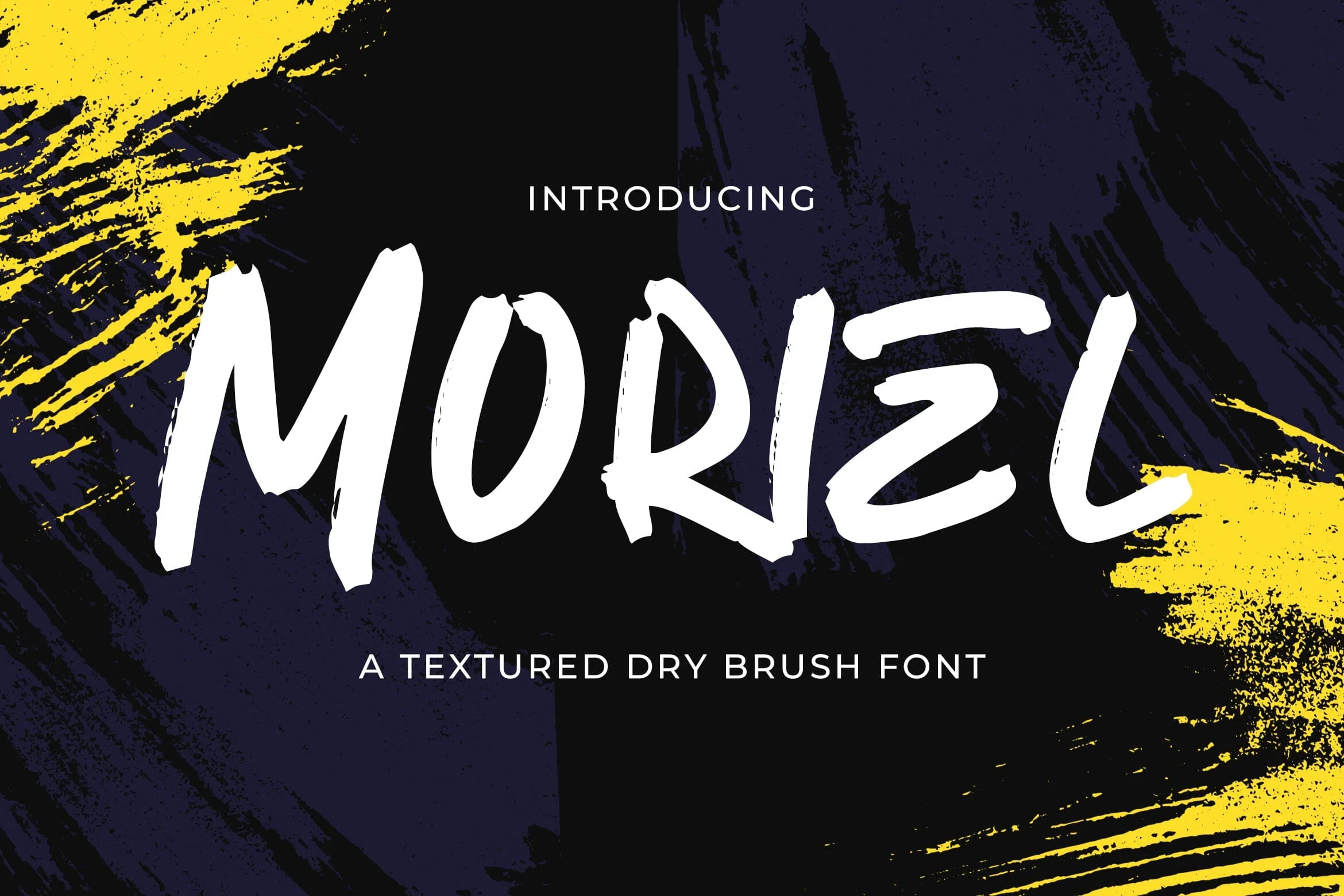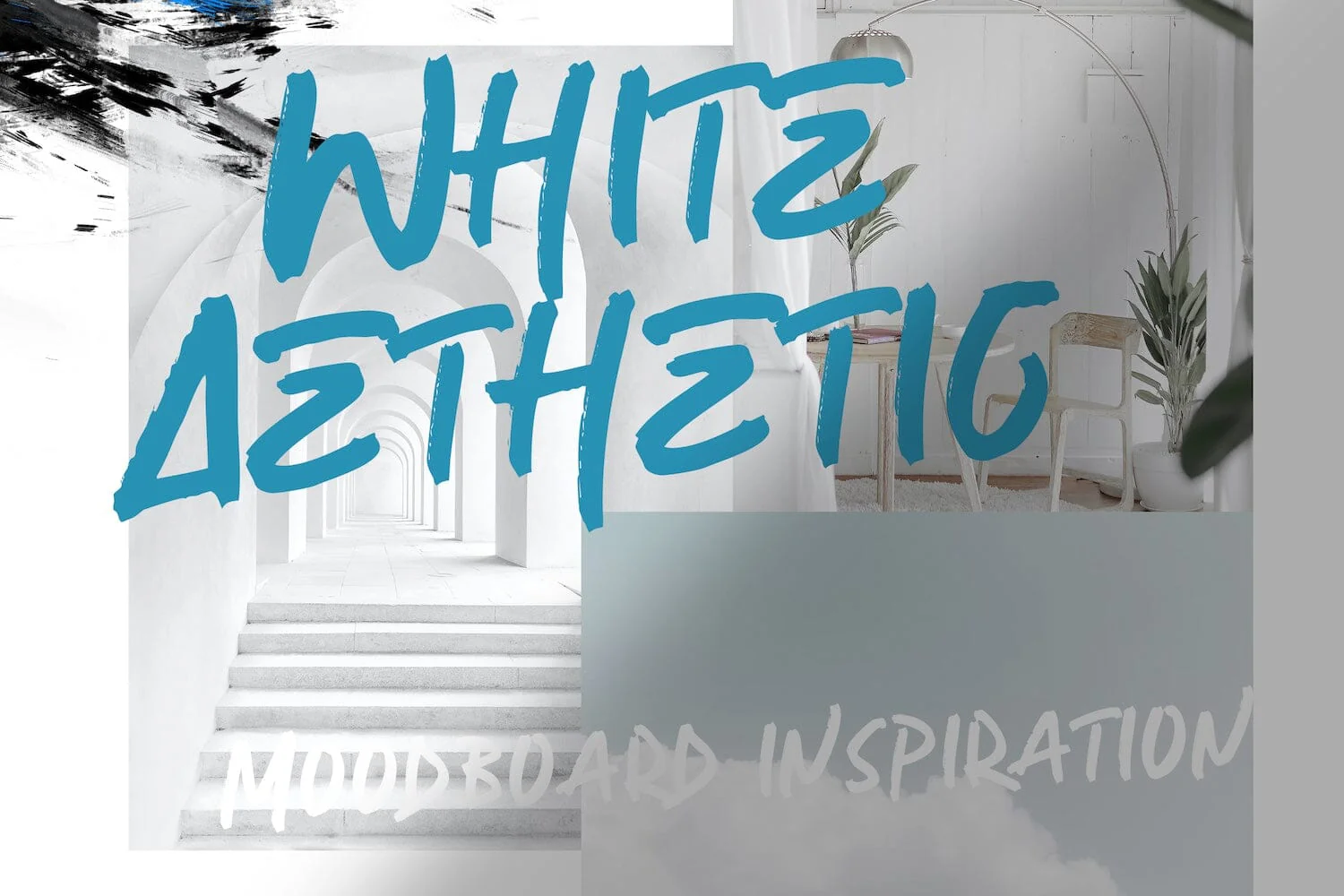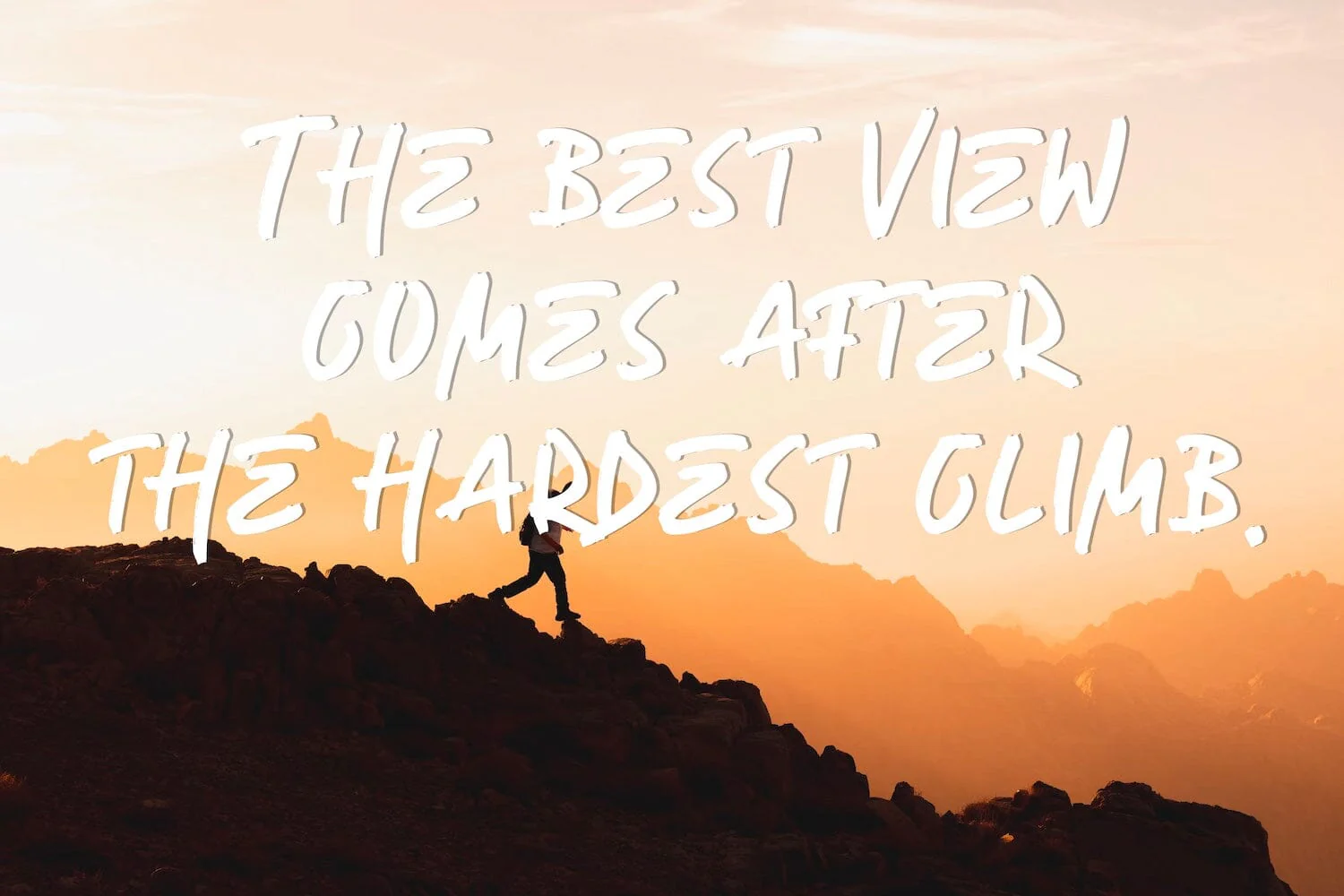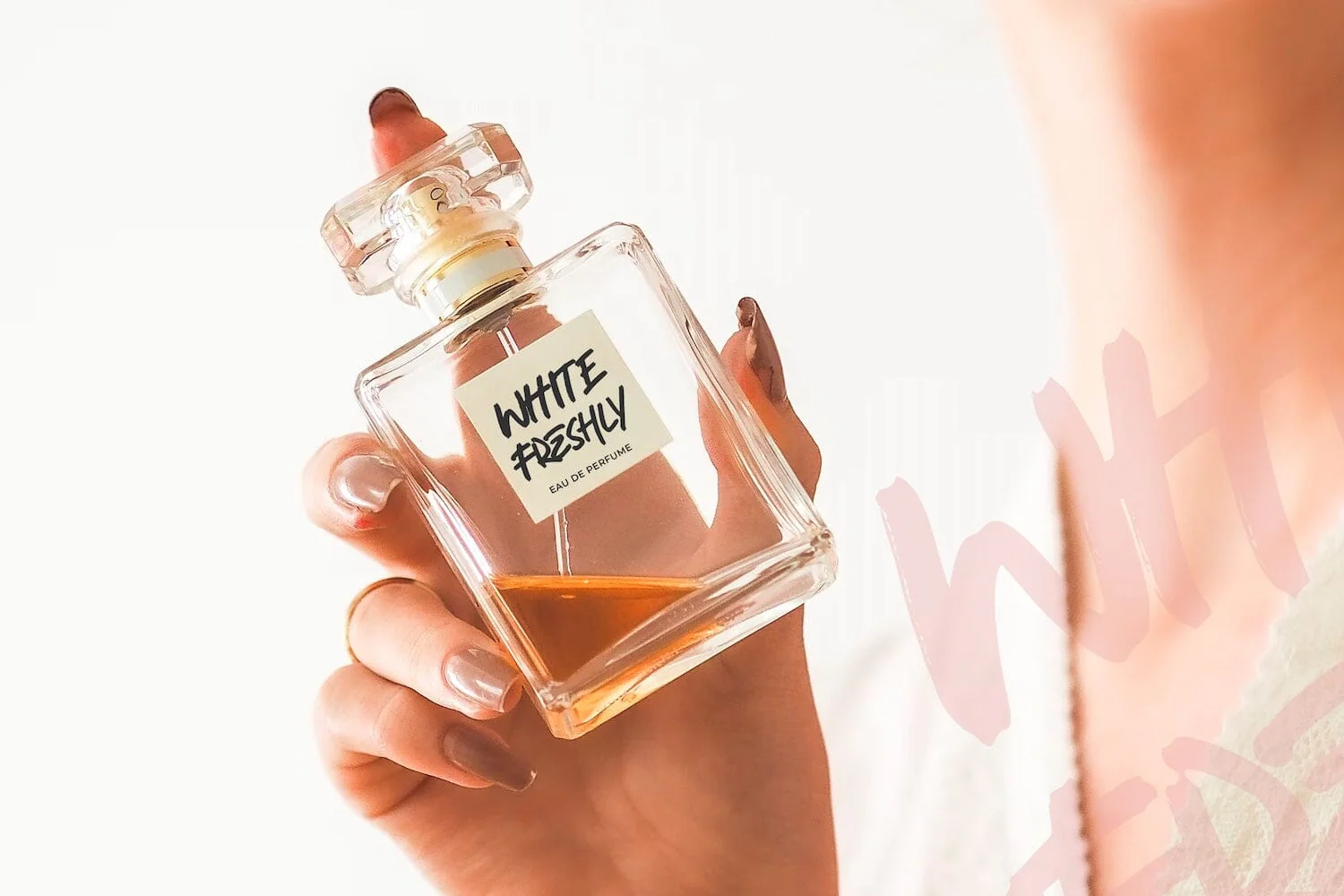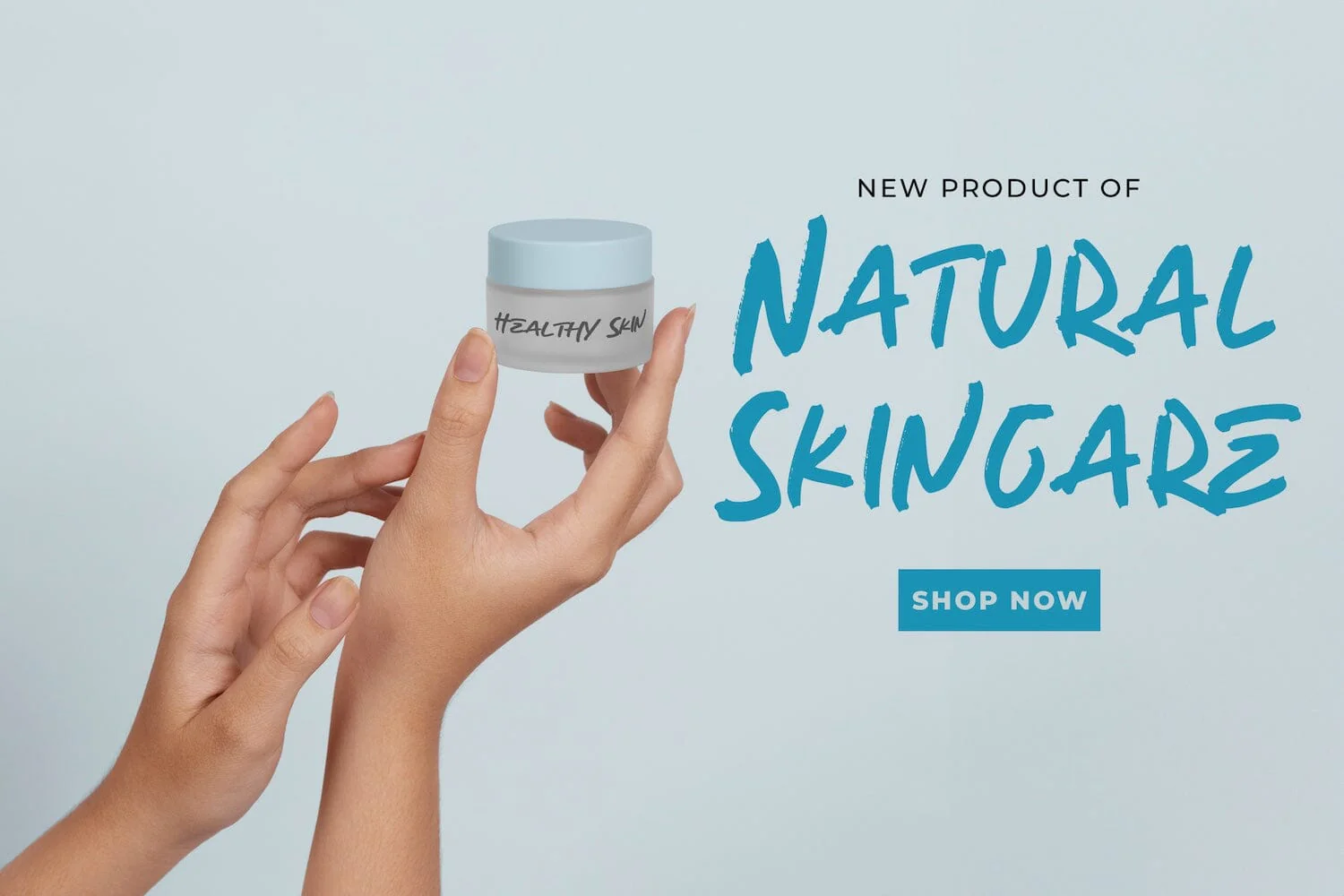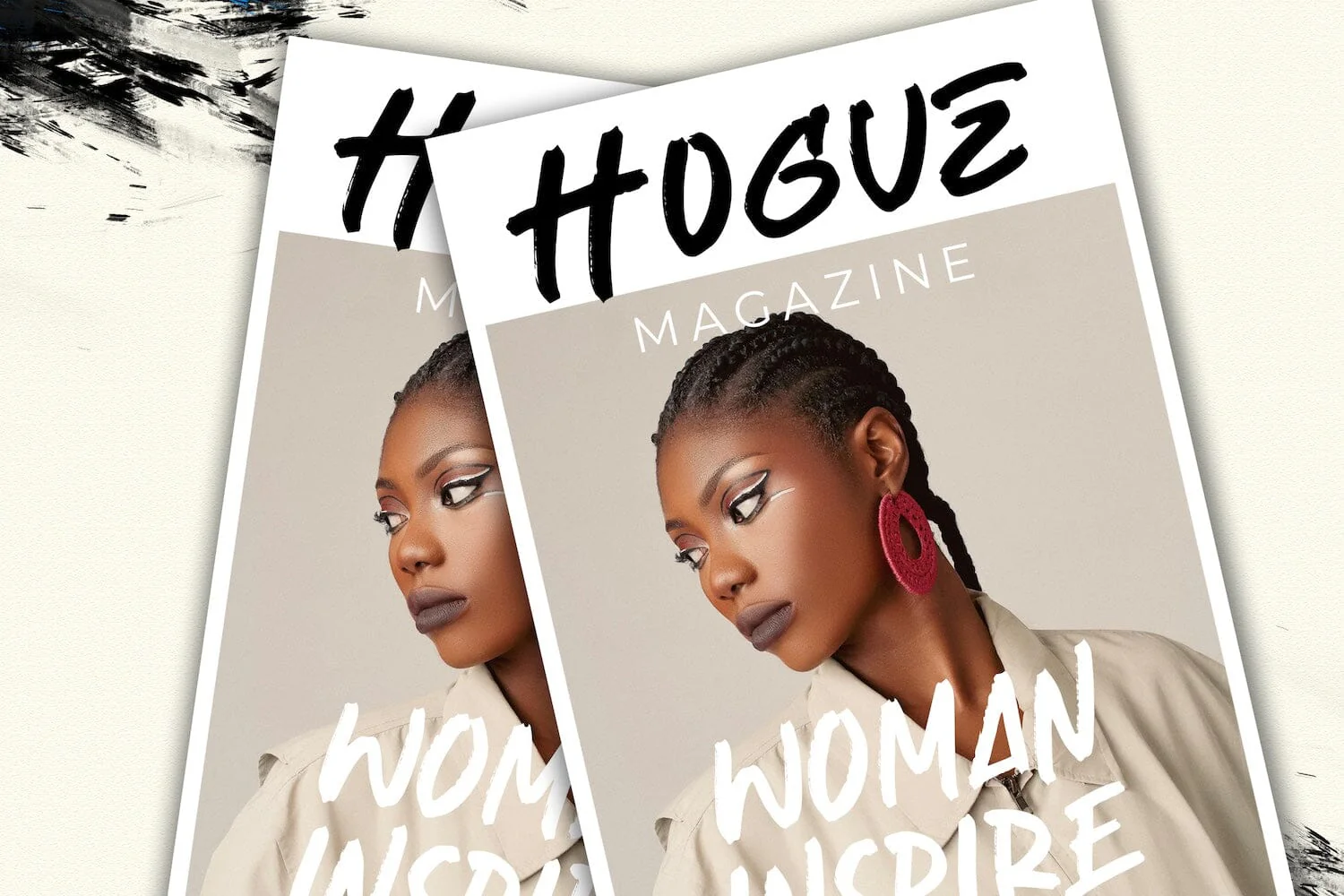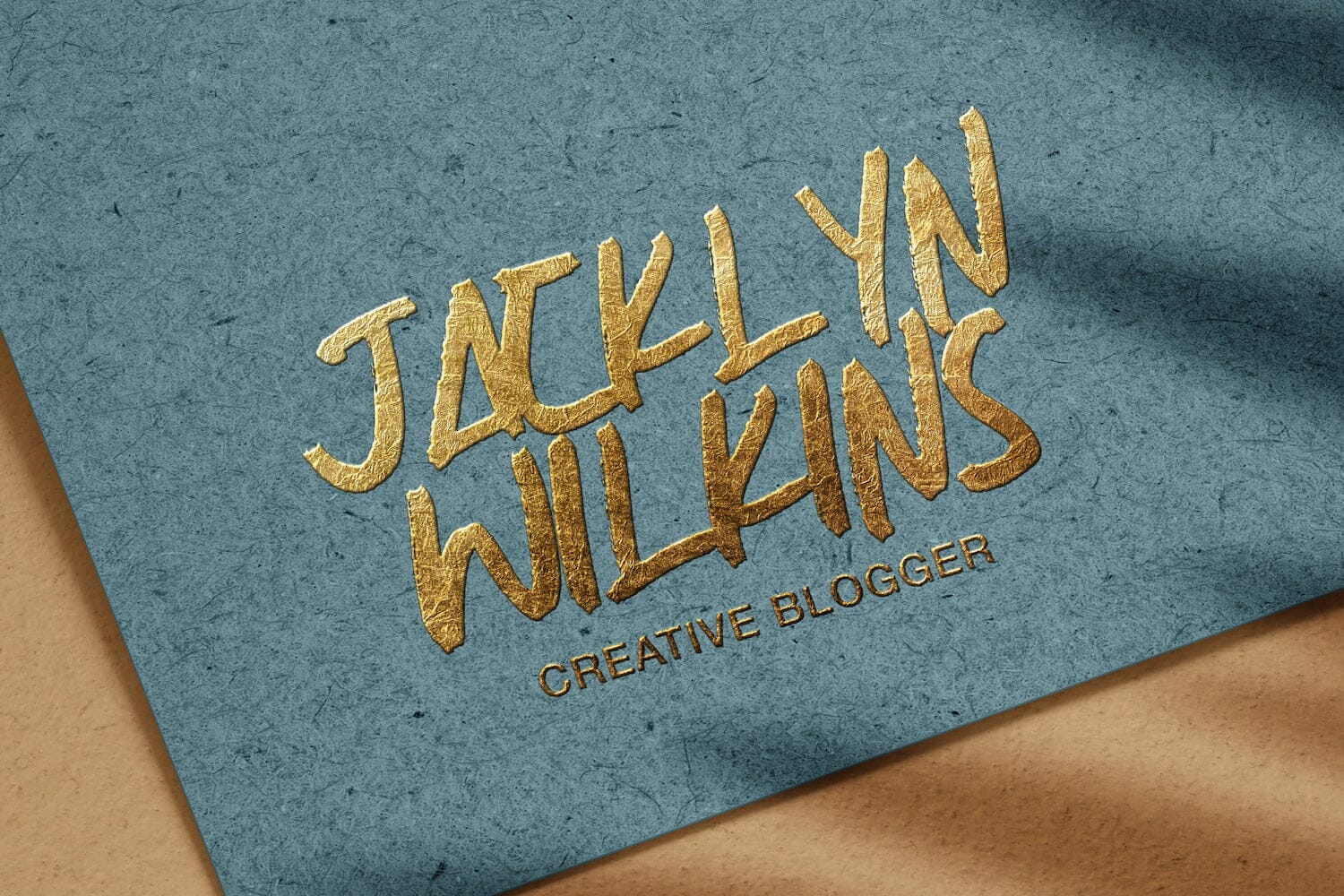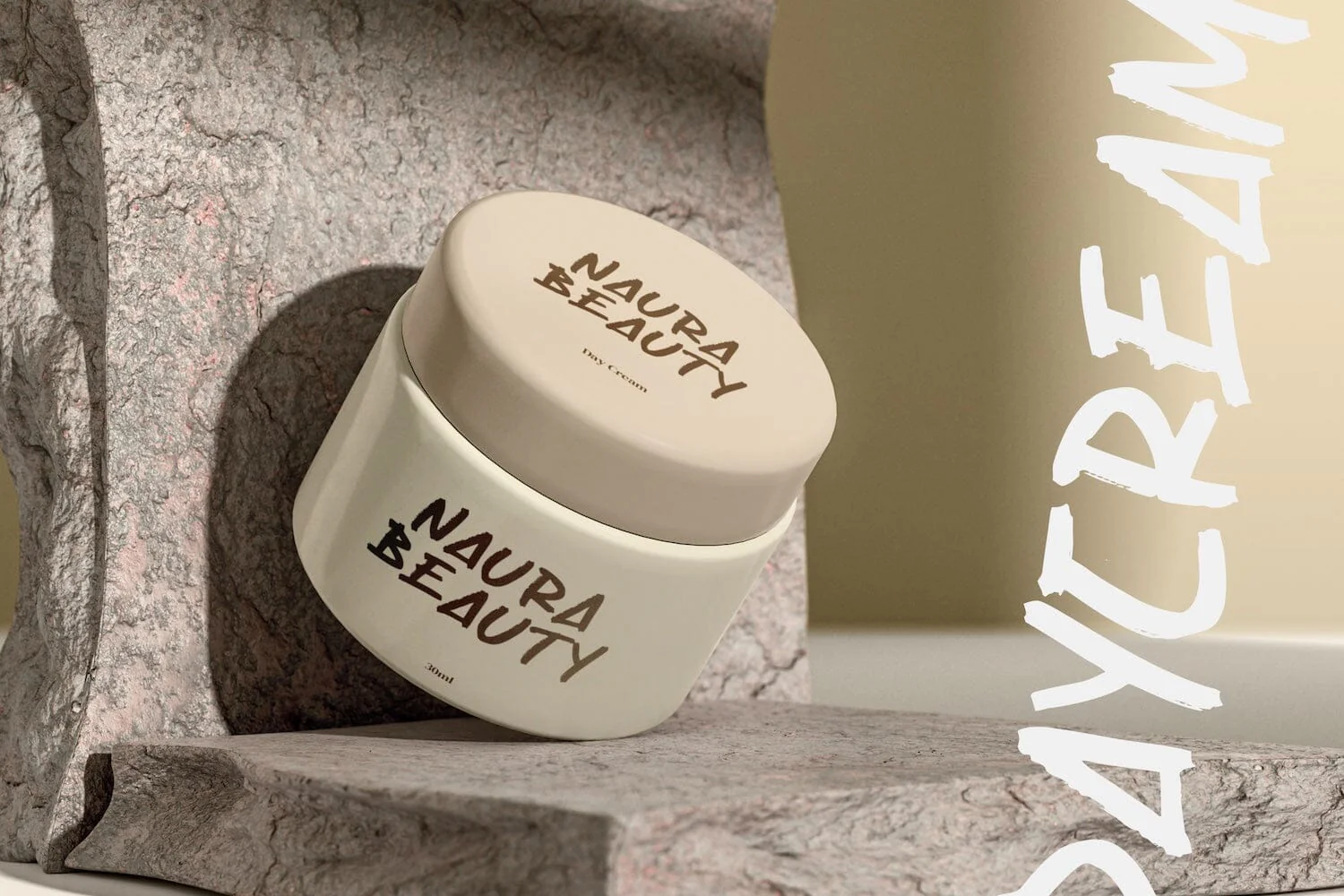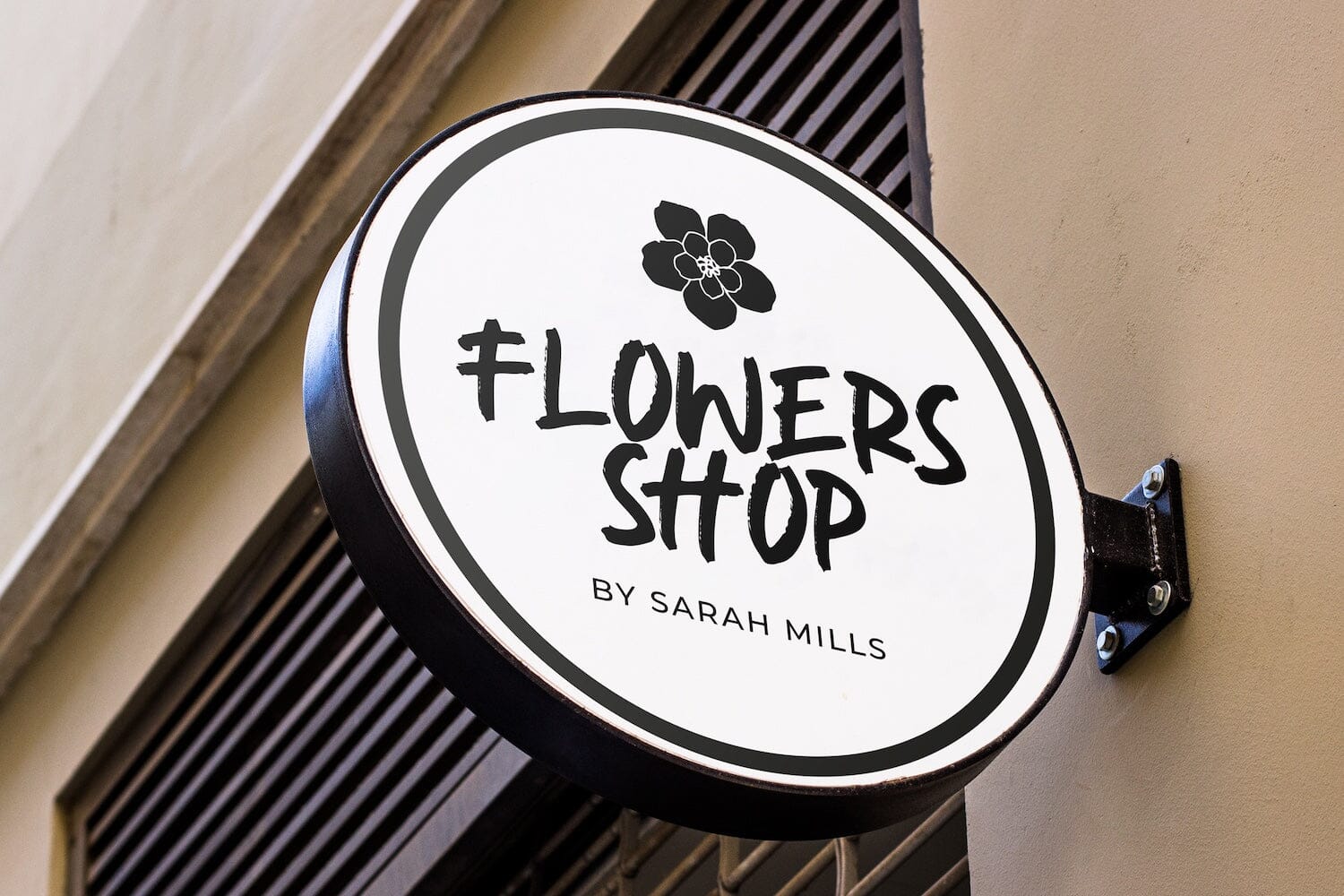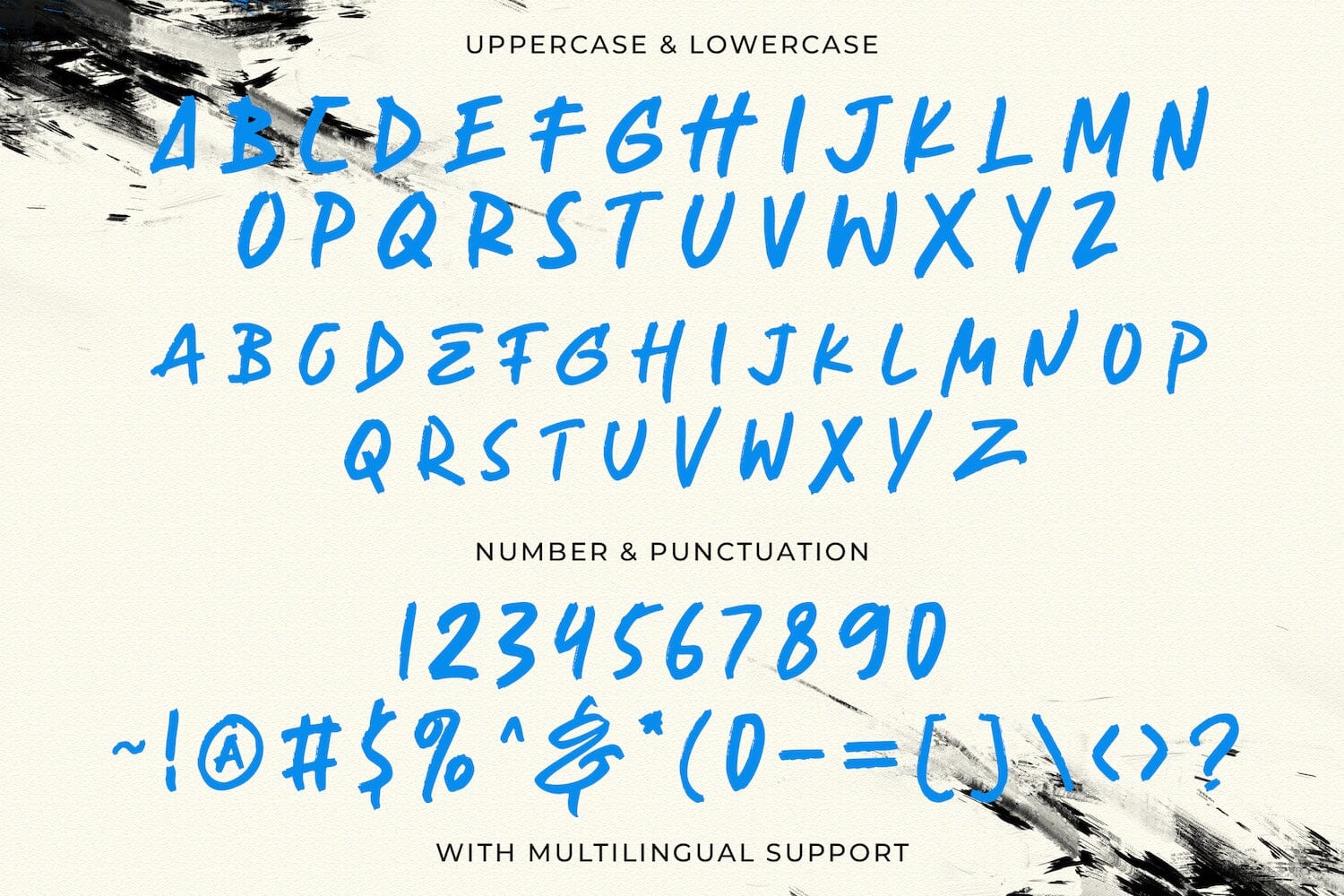
Moriel - Textured Brush Font
Introducing Moriel - Textured Brush Font
Moriel is a textured handbrush font. Moriel is a flowing and stylish display brush font, created with the help of a brush pen. Get inspired by its unique and beautiful style and add it to your favorite designs!